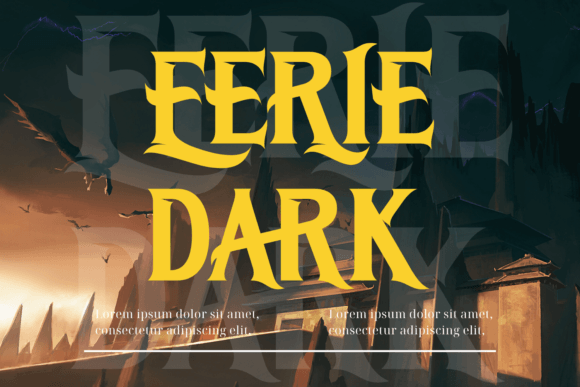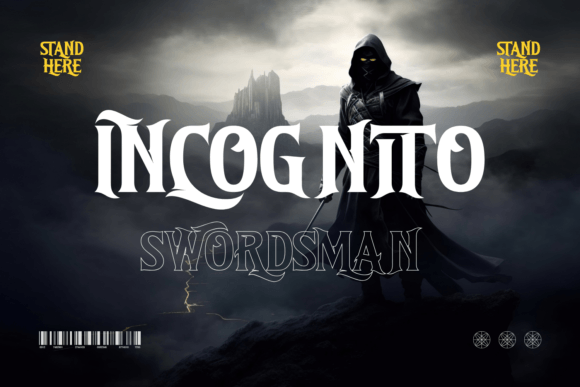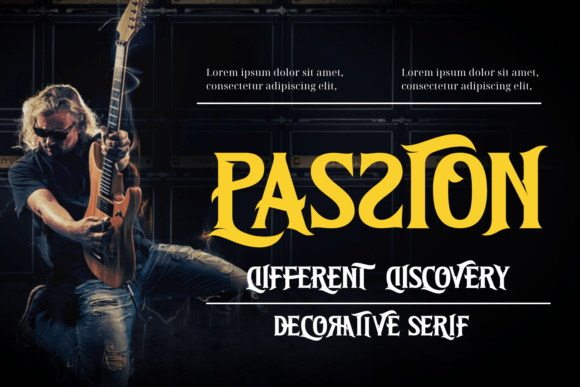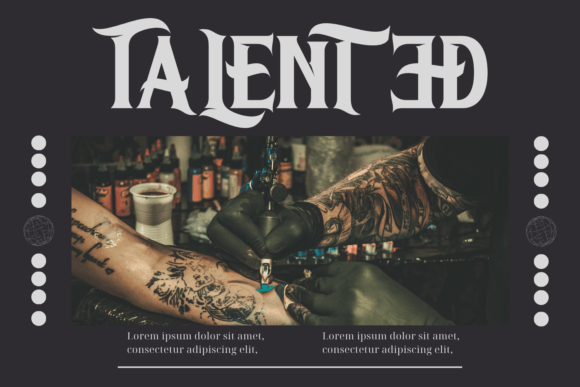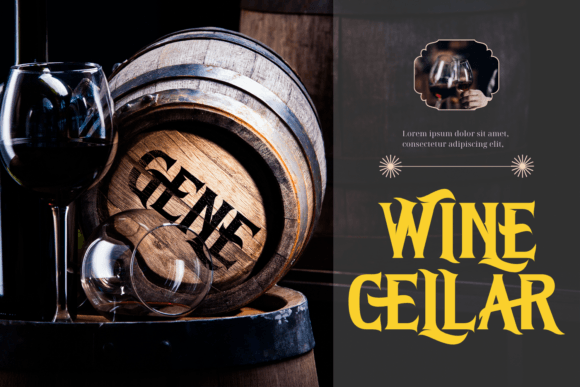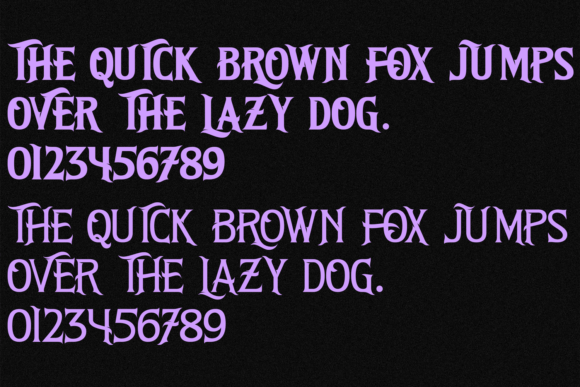
Introducing Different Discovery Font: A Vintage-Inspired Masterpiece
Are you a designer or crafter looking for a unique and stylish font to elevate your merchandise design, streetwear, or branding projects? Look no further than Different Discovery Font, an old vintage font inspired by the culture of tattoo and biker visual design. This stunning font is packed with features that will make your designs stand out from the crowd.
Aesthetic Inspiration
Different Discovery Font draws inspiration from the rugged and rebellious world of tattoo and biker culture. The font’s strong curves and artistic characters evoke a sense of elegance and sophistication, making it perfect for designs that require a touch of edginess. The font’s vintage vibe is reminiscent of classic tattoo art and biker typography, but with a modern twist that will make your designs look fresh and contemporary.
Different Discovery Font is more than just a pretty face. This font is built with OpenType features, which provide a range of benefits for designers. Here are some of the key features that make this font so versatile:
- 100 Ligatures: Ligatures are special characters that combine two or more letters into a single glyph. Different Discovery Font includes 100 ligatures, which will help you create unique and visually appealing text arrangements.
- Alternate Characters: The font includes alternate characters, which allow you to switch between different versions of a letter or symbol. This feature gives you even more creative control over your designs.
- Numbers, Punctuation, and Language Support: Different Discovery Font includes a full set of numbers, punctuation marks, and language support, making it suitable for a wide range of design applications.
Use Cases
So, what can you use Different Discovery Font for? The possibilities are endless! Here are some ideas to get you started:
- Merchandise Design: Create eye-catching t-shirts, hoodies, and other merchandise with this font.
- Streetwear: Use Different Discovery Font to design bold and stylish streetwear labels.
- T-Shirt Design: Design stunning t-shirts with this font, perfect for fashion brands or individual designers.
- Logo Design: Create a unique and memorable logo for your brand or business.
- Typography Design: Experiment with Different Discovery Font in your typography designs, creating stunning posters, flyers, and brochures.
- Poster Design: Use this font to create bold and attention-grabbing posters for events, promotions, or advertising campaigns.
- Packaging Design: Add a touch of elegance and sophistication to your packaging designs with Different Discovery Font.
- Branding: Use this font to create a consistent brand identity across all your marketing materials.
In conclusion, Different Discovery Font is an exceptional vintage-inspired font that’s perfect for designers and crafters looking to add a touch of elegance and sophistication to their designs. With its strong curves, artistic characters, and extensive features, this font is sure to become a staple in your design toolkit. So why wait? Download Different Discovery Font today and start creating stunning designs that will leave a lasting impression!